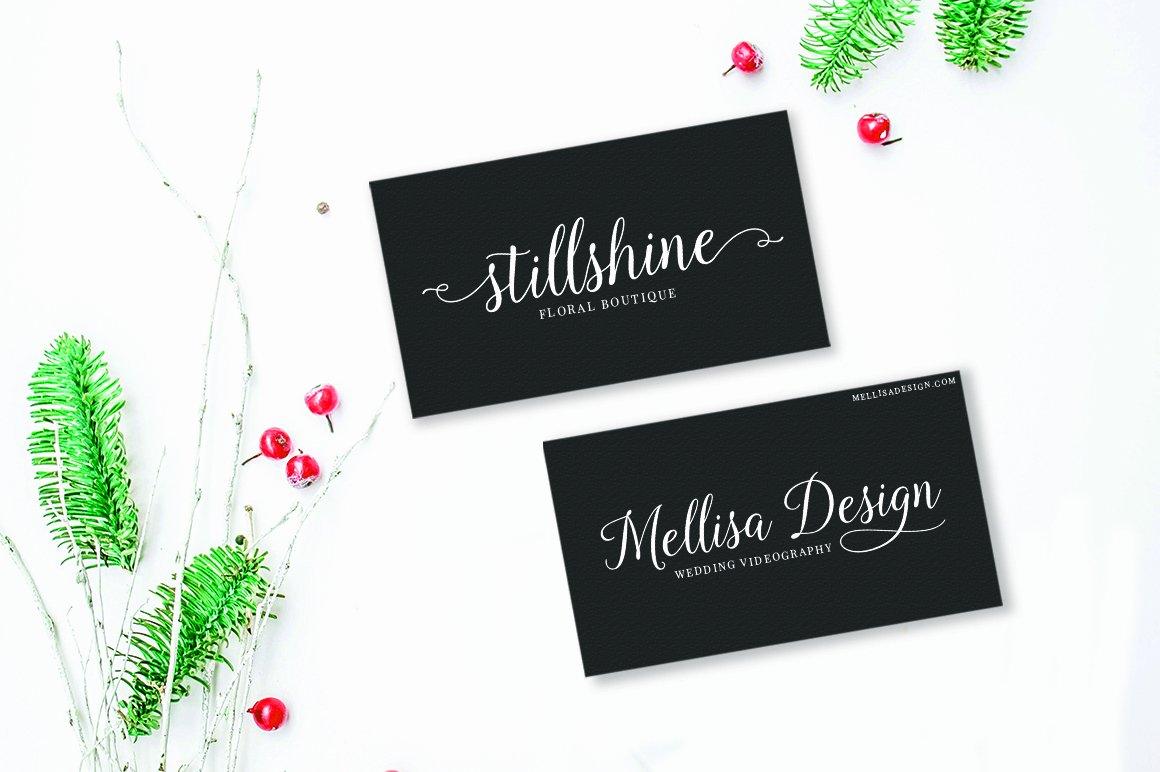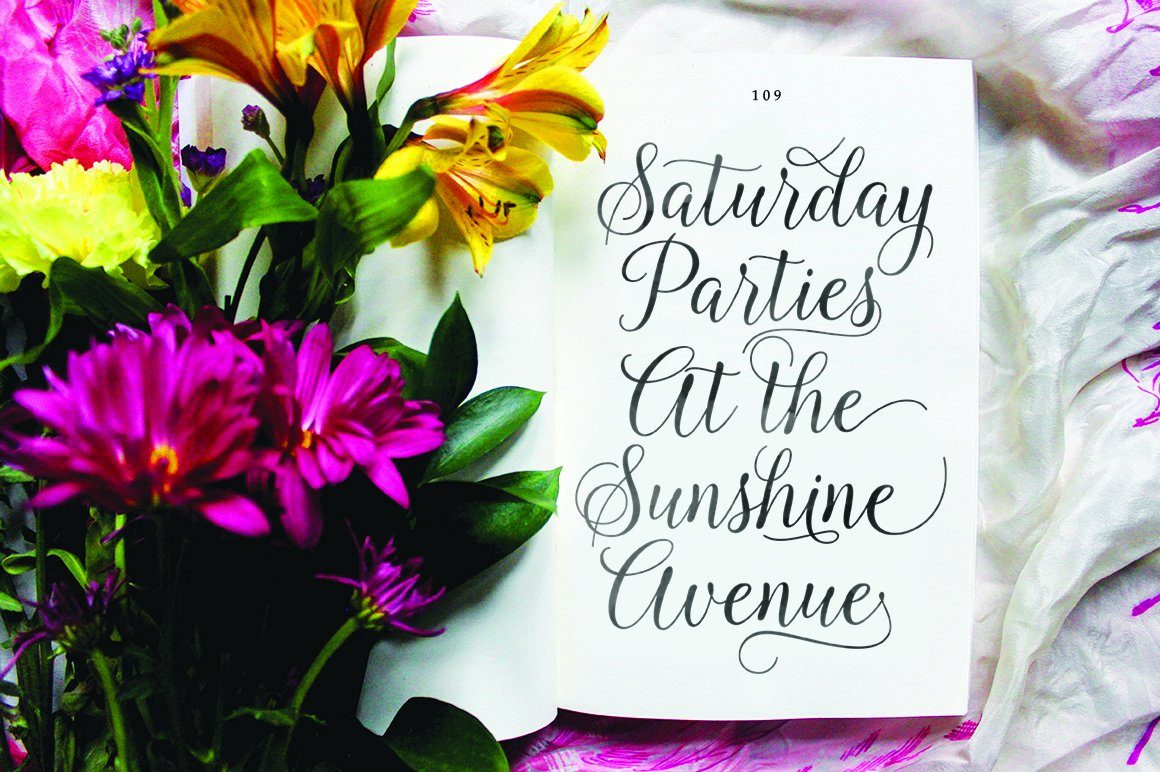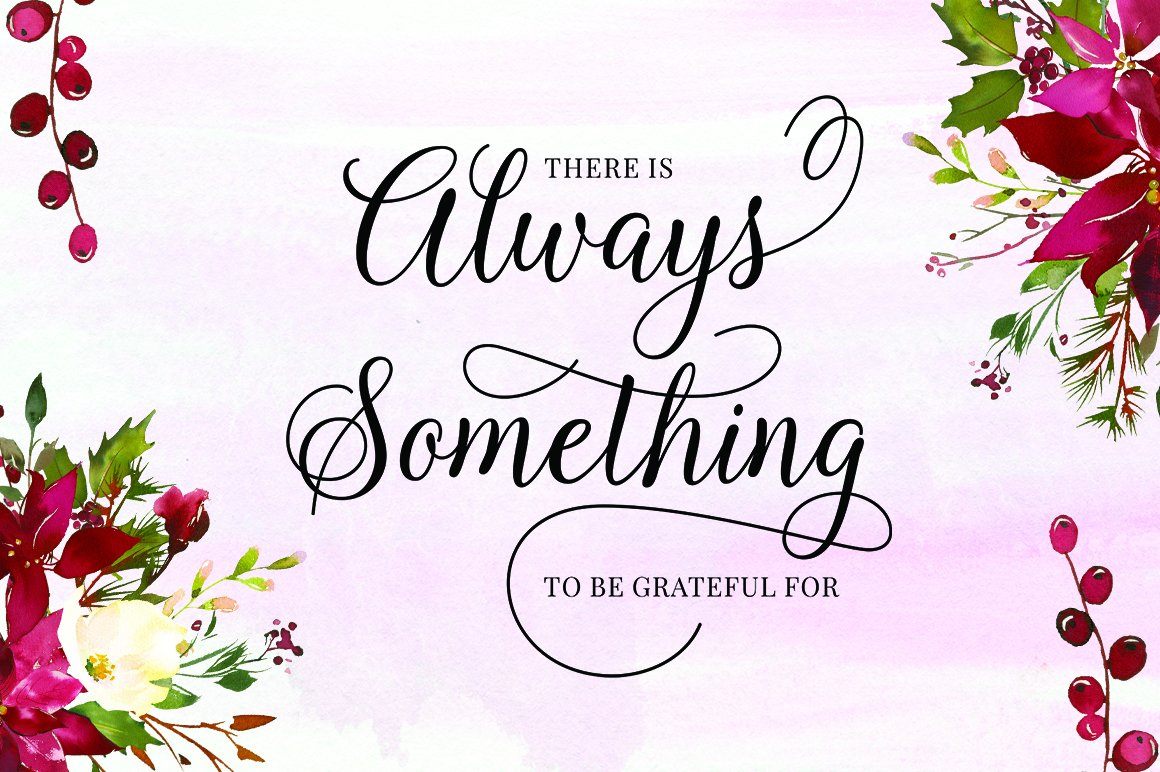
About Kasandra Script
Kasandra Script is a modern calligraphy font that features a varying baseline, smooth line, classic and elegant touch. Can be used for various purposes.such as headings, signature, logos, wedding invitation, t-shirt, letterhead, signage, lable, news, posters, badges etc. Kasandra Script features 460+ glyphs and 244 alternate characters. including initial and terminal letters, alternates, ligatures and multiple language support. Files included: • Kasandra Script .otf • Kasandra Script .ttf To enable the OpenType Stylistic alternates, you need a program that supports OpenType features such as Adobe Illustrator CS, Adobe Indesign & CorelDraw X6-X7, Microsoft Word 2010 or later versions. How to Access Alternate Characters : • https://www.youtube.com/watch?v=xFlMwARHusY • https://www.youtube.com/watch?v=XzwjMkbB-wQ There are additional ways to access alternates/swashes, using Character Map (Windows), Nexus Font (Windows), Font Book (Mac) or a software program such as PopChar (for Windows and Mac). How to access all alternative characters, using Windows Character Map with Photoshop: • https://www.youtube.com/watch?v=Go9vacoYmBw Thank you for your purchase!